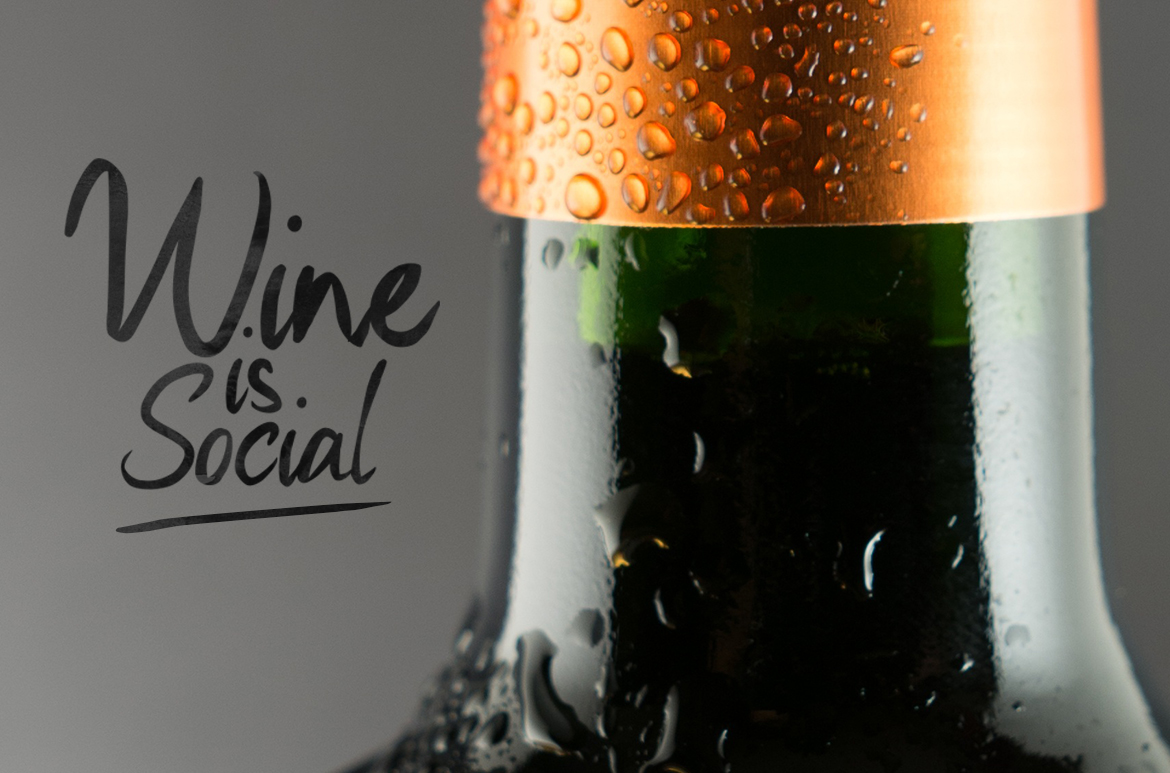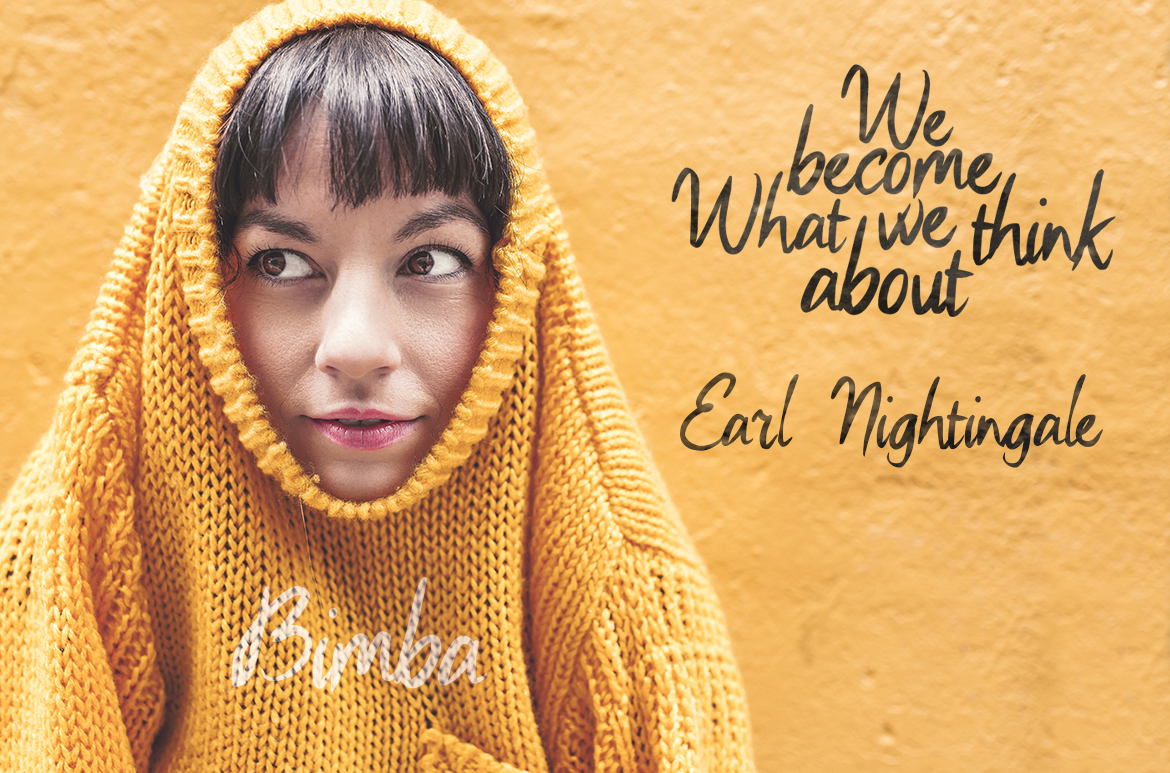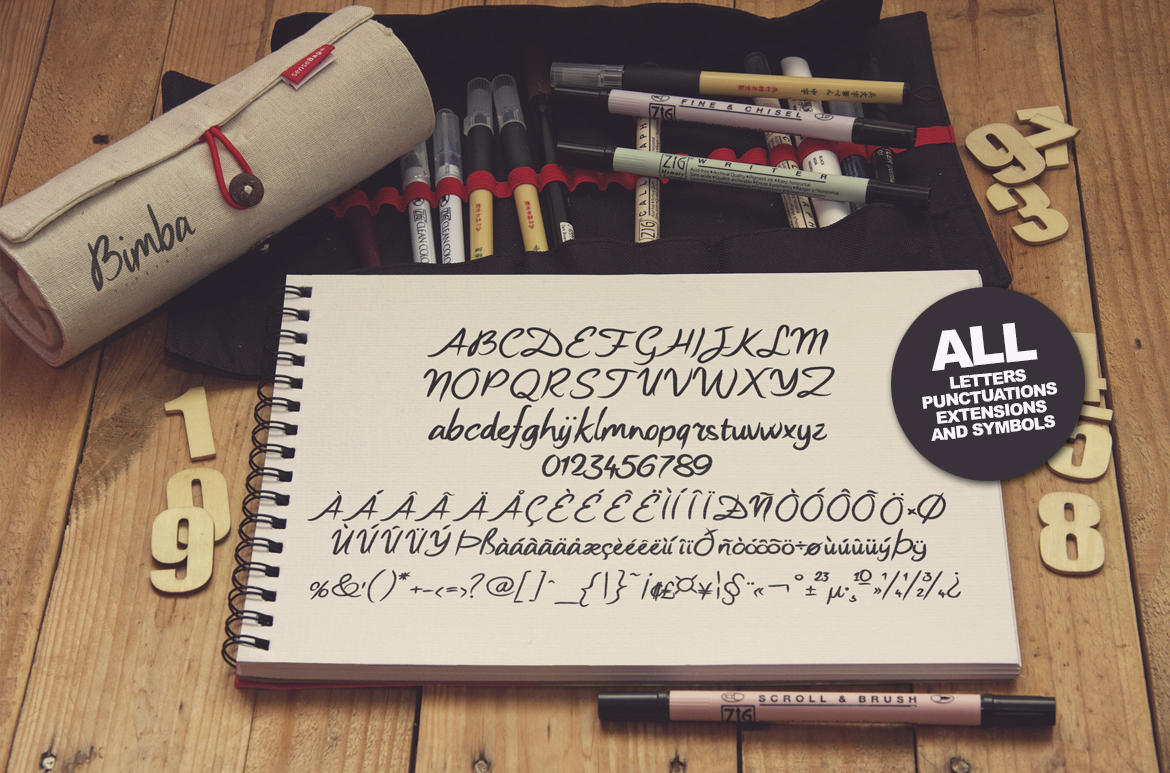
HomeScript FontsBimba Font Script Fonts Bimba Font FacebookXPinterestWhatsApp Bimba Font Poster 2 Bimba Font Poster 3 Bimba Font Poster 4 About Bimba Font Bimba is a stunning fluid handwritten font by Pere Esquerra. DOWNLOAD NOW People also explored Thicker Font Hotel Lorint Font Anatasya Font Bella Font 1313 Mockingbird Lane Ever Font Husk Firefighter Christmas Font Rosique – Script Font 273 0 TagsBimba Font Previous articleBumpy FontNext articleBeer Font LEAVE A REPLY Cancel reply Comment: Please enter your comment! Name:* Please enter your name here Email:* You have entered an incorrect email address! Please enter your email address here Website: Save my name, email, and website in this browser for the next time I comment. Personal Use Free Sabina Illusion Personal Use Free Read more about this font Mellgatha Personal Use Free Read more about this font BD Lofi Personal Use Free Read more about this font Blast Personal Use Free Read more about this font BLOG To increase your work productivity, choose the most readable fonts. In today's fast-paced work environment, where digital communication and information consumption are integral to our daily routines, the choice of fonts can significantly impact... Free Fonts Risk: Why Free Fonts Can Be Dangerous for Designers Best Fonts for YouTube Videos: Make Your Thumbnails Stand Out How to Install and Use Fonts on Windows, macOS, and Web Projects